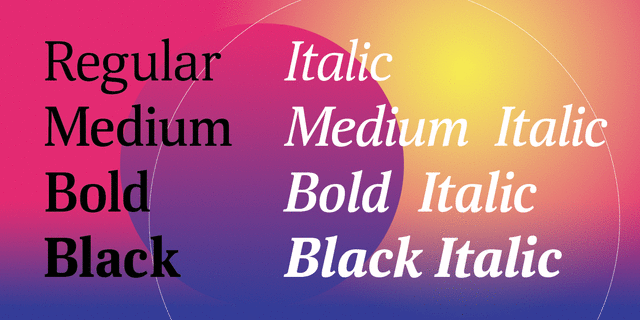
About Scientia (means "knowledge", "science" in Latin) is a neutral serif typeface in eight styles. It contains four weights (Regular, Medium, Bold, Black) with corresponding italics. All the styles support Western and Central European Latin, basic and Asian Cyrillic and Greek. Regular and Medium styles include smallcaps for all supported languages. In addition to the standard set of non-alphabetic characters Scientia has arrows and some supplemental mathematical symbols. The font was created by Natalia Vasilyeva. Being a professional book designer, Natalia uses Scientia in astronomy books. Scientia is a good choice for literary fiction and academic non-fiction texts. The typeface was released by ParaType in 2016.
Associations for font family ScientiaTypeface personality and character:
authoritative, reliable, stable, convincing, business, serious, calm, solid, self-assured, simple, strict, flat, harmonious, universal, clear, neutral, average, normal, balanced, cosmopolitan, unobtrusive, moderate, technically, modern, accurate, logical, low key, practical, optimal, available, static, cultural, educated, humanitarian, urban, correct, clever, polite, cultured, strong, motivating, responsible